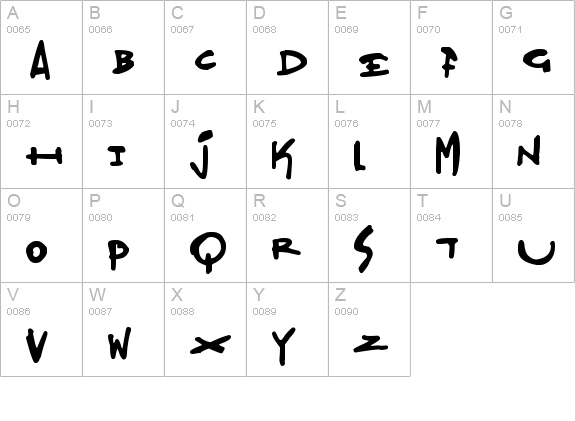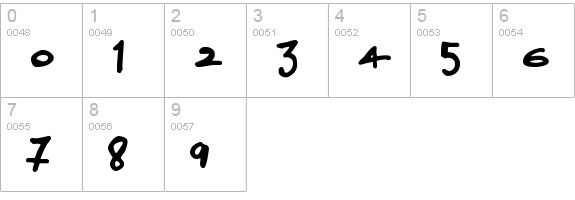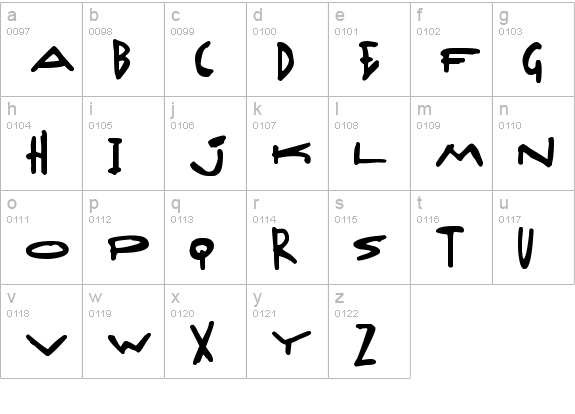
Madjumbles Font Details
Madjumbles is a free for personal use font in the Script category, designed by Darrell Flood. It has been downloaded 20 times and is available for Windows, Mac and Linux.
Madjumbles font is a whimsical and unique typeface that is perfect for adding a playful touch to your designs. With its quirky letter shapes and uneven baseline, Madjumbles brings a sense of fun and creativity to any project. This font is ideal for headlines, logos, posters, and more.